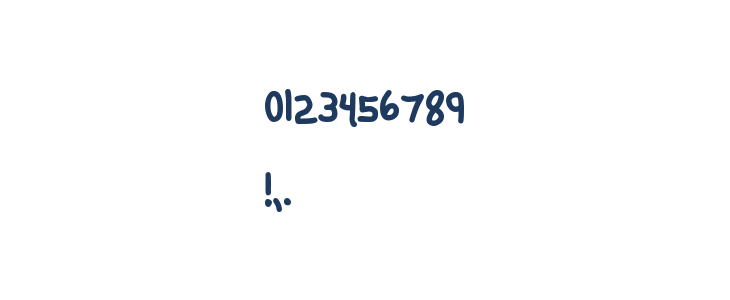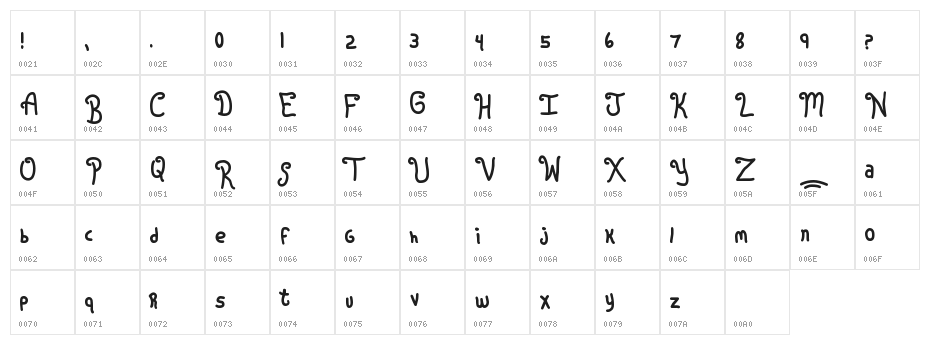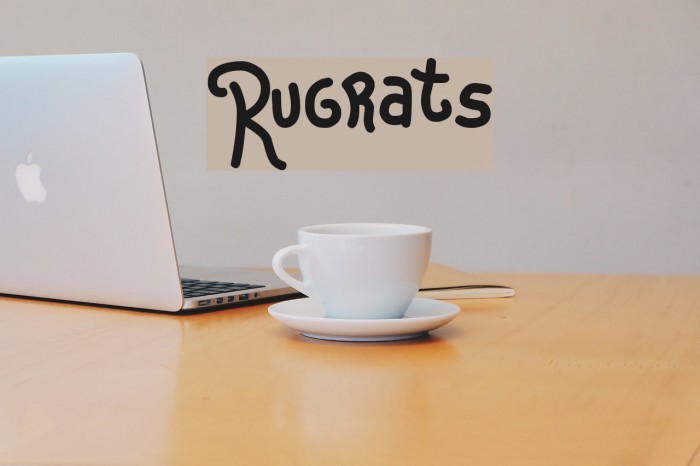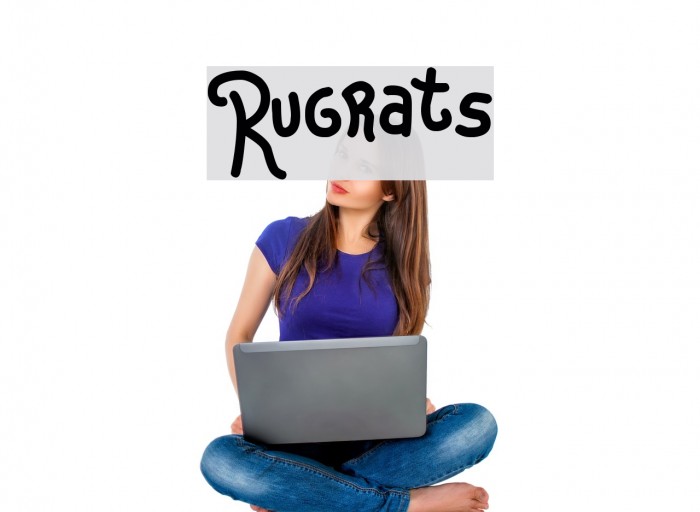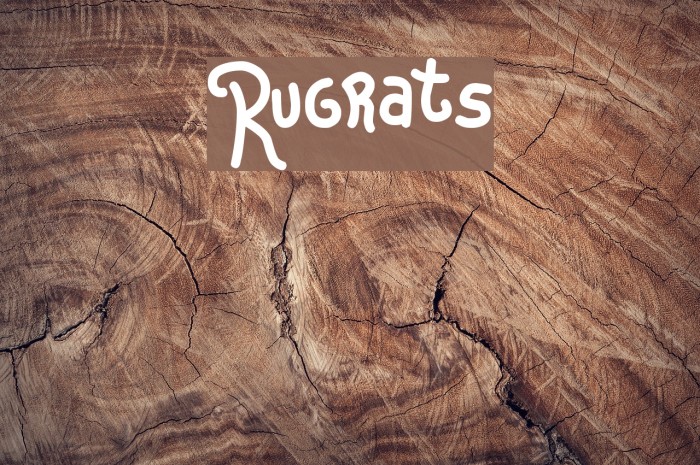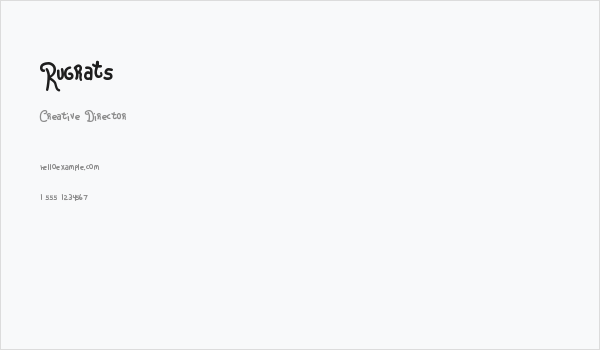
Rugrats Font
Rugrats Description
This playful and whimsical font features a hand-drawn, cartoonish style with irregular, wavy lines that give it a lively and energetic appearance. The characters are bold and rounded, with a slightly uneven baseline that adds to its informal and fun aesthetic. The uppercase and lowercase letters maintain a consistent style, with exaggerated curves and loops that enhance its childlike charm. Numbers and special characters follow the same playful design, making it suitable for projects that require a lighthearted and youthful touch.
| Proposed Projects | Ideal for children's books, playful branding, cartoons, and party invitations. |